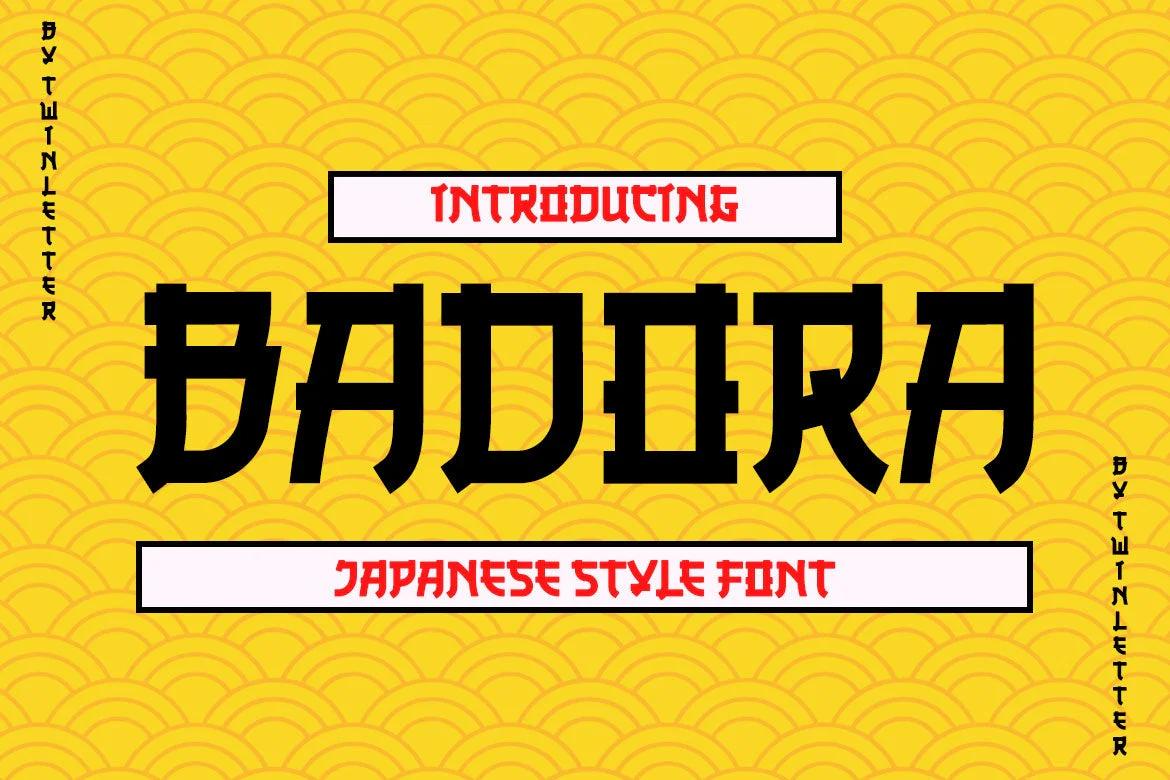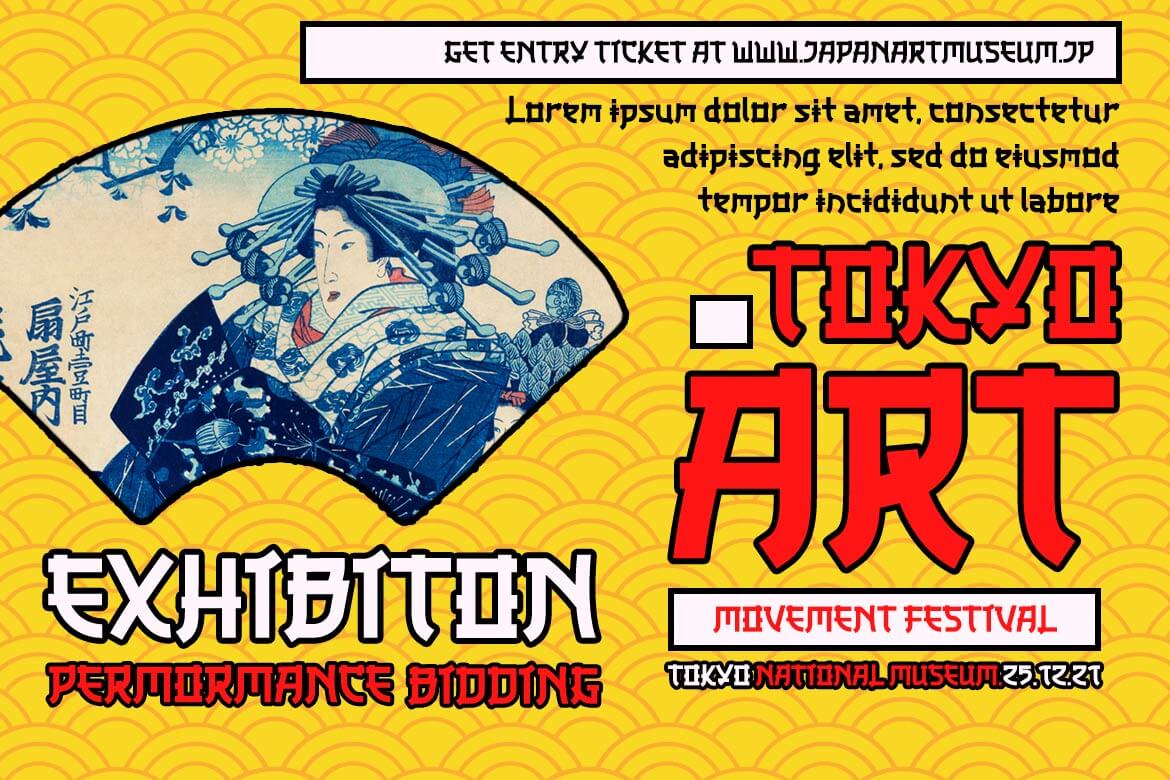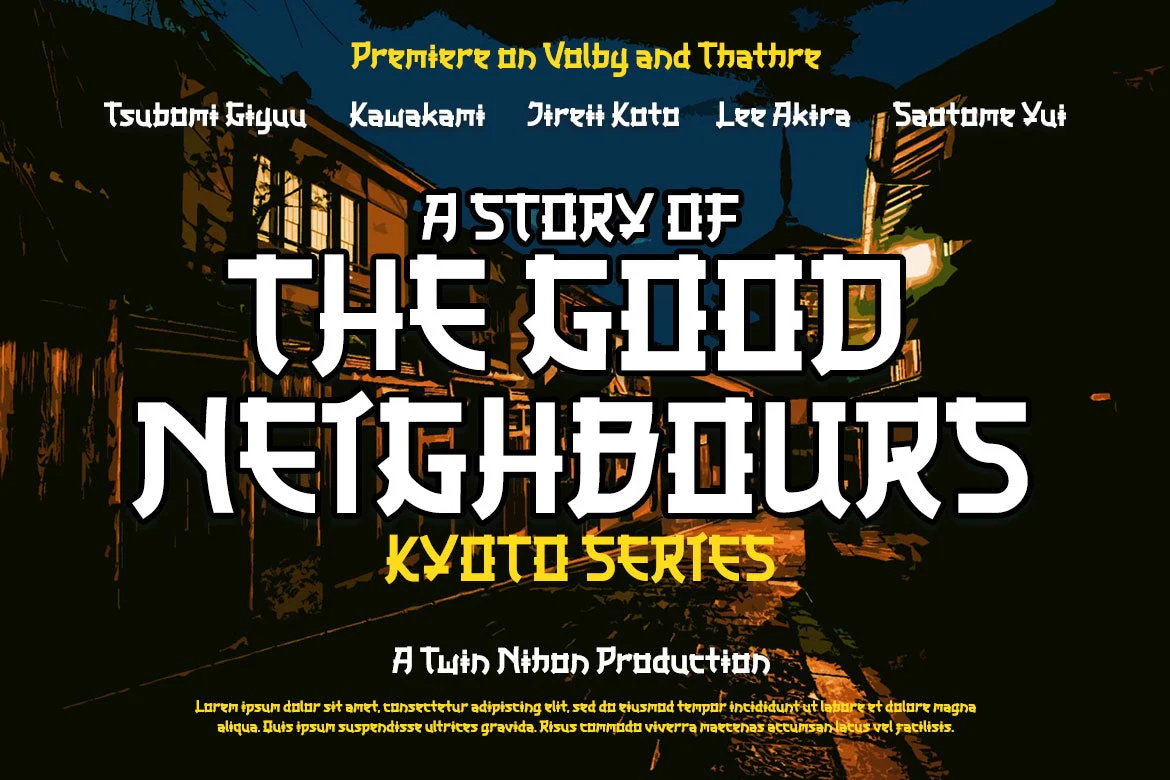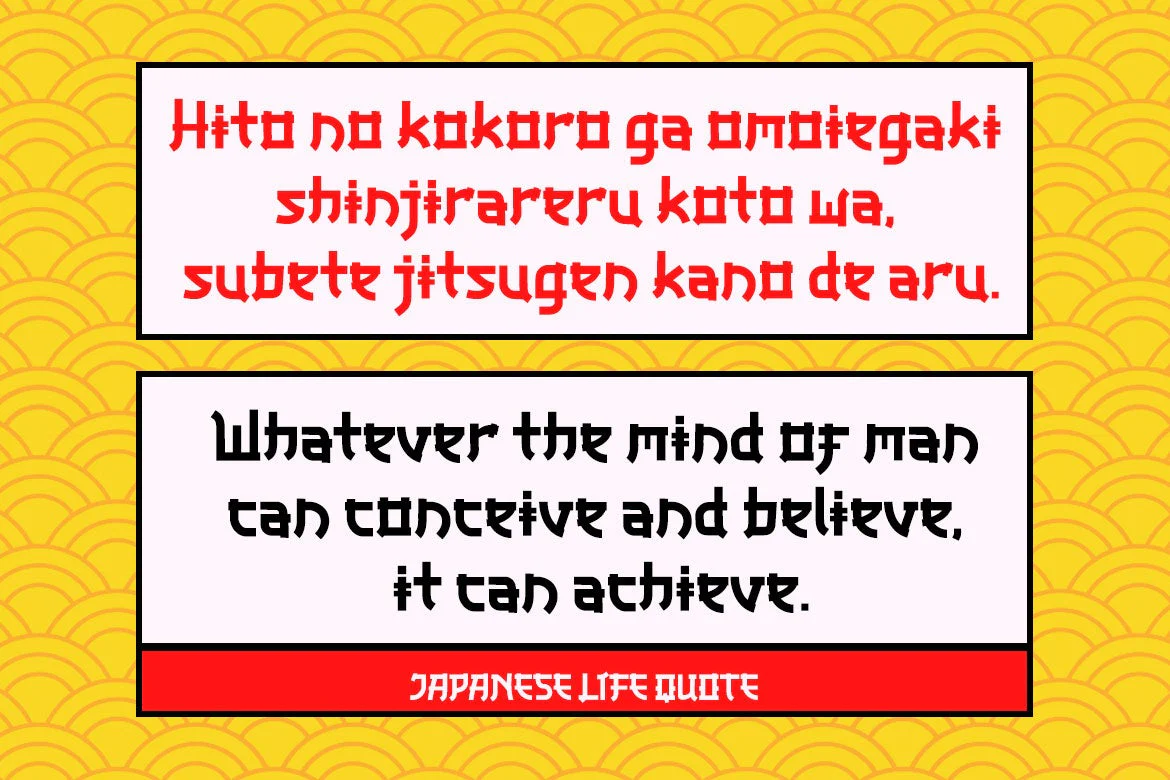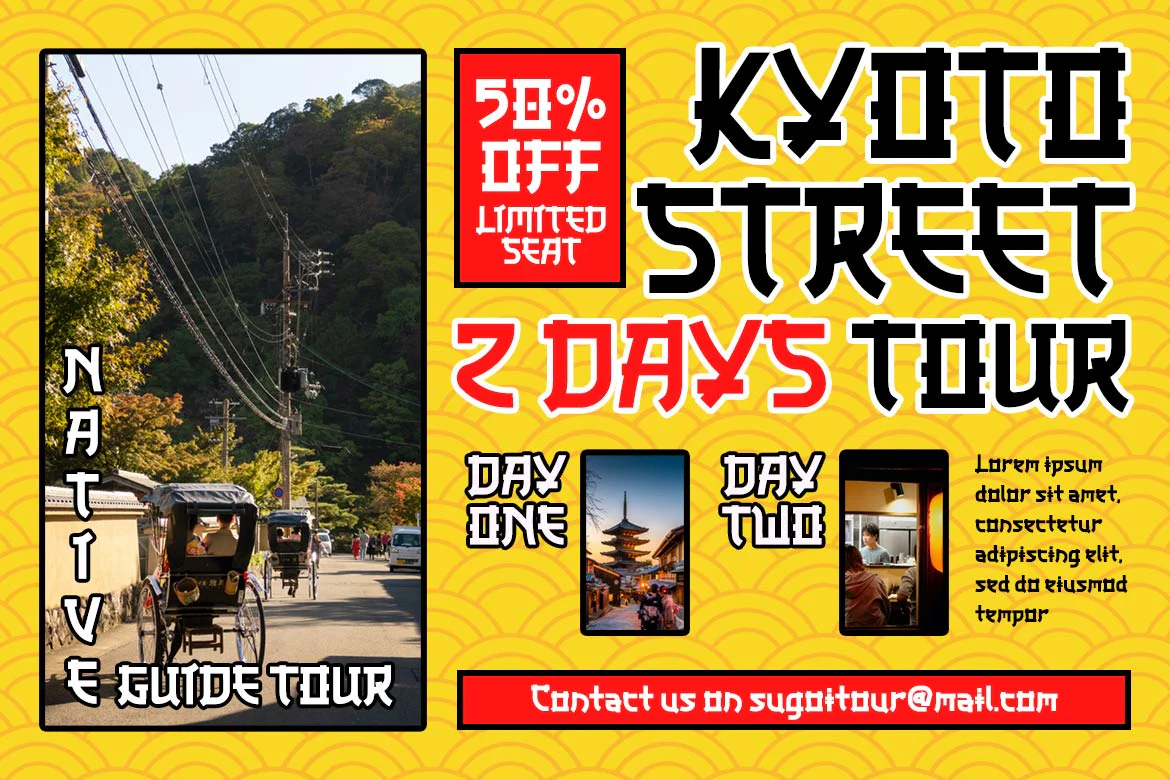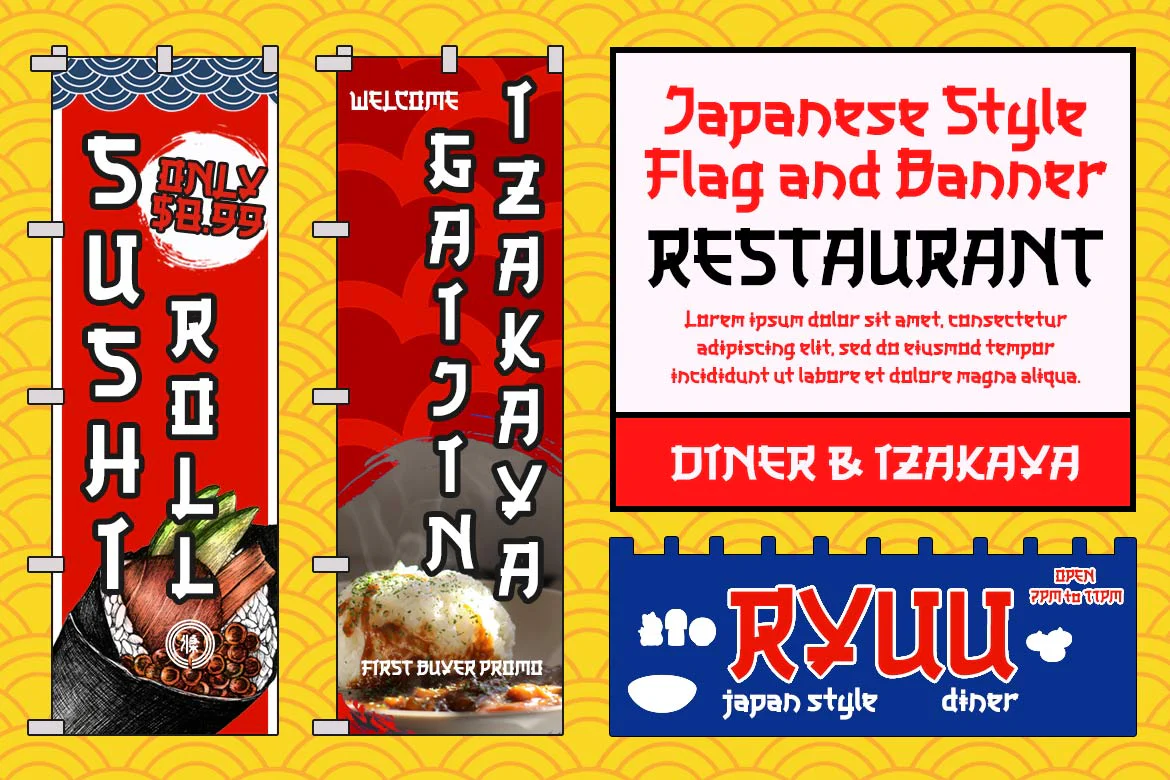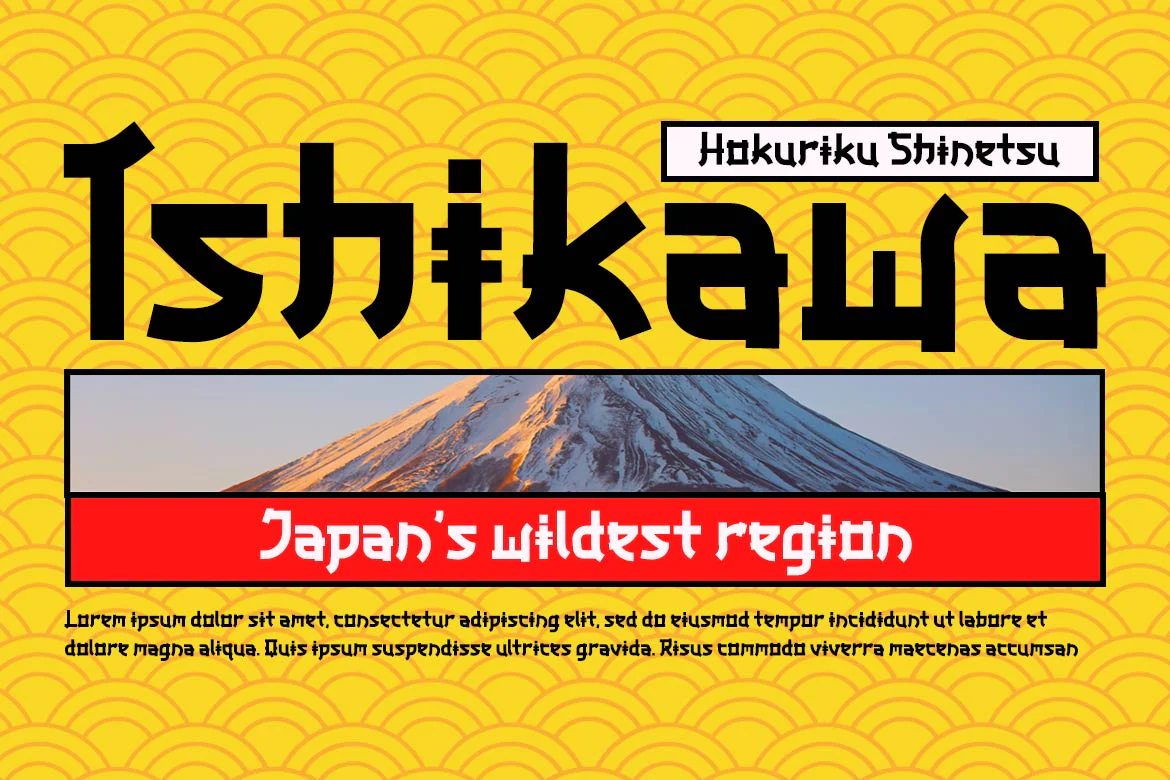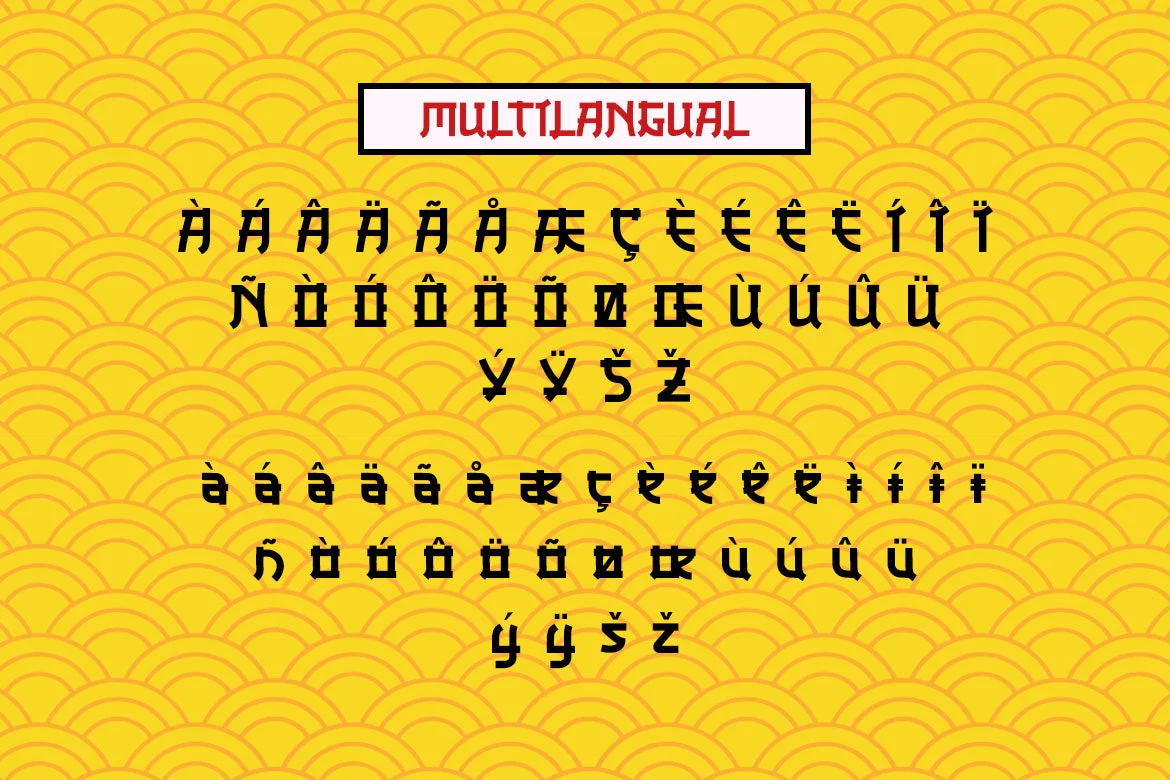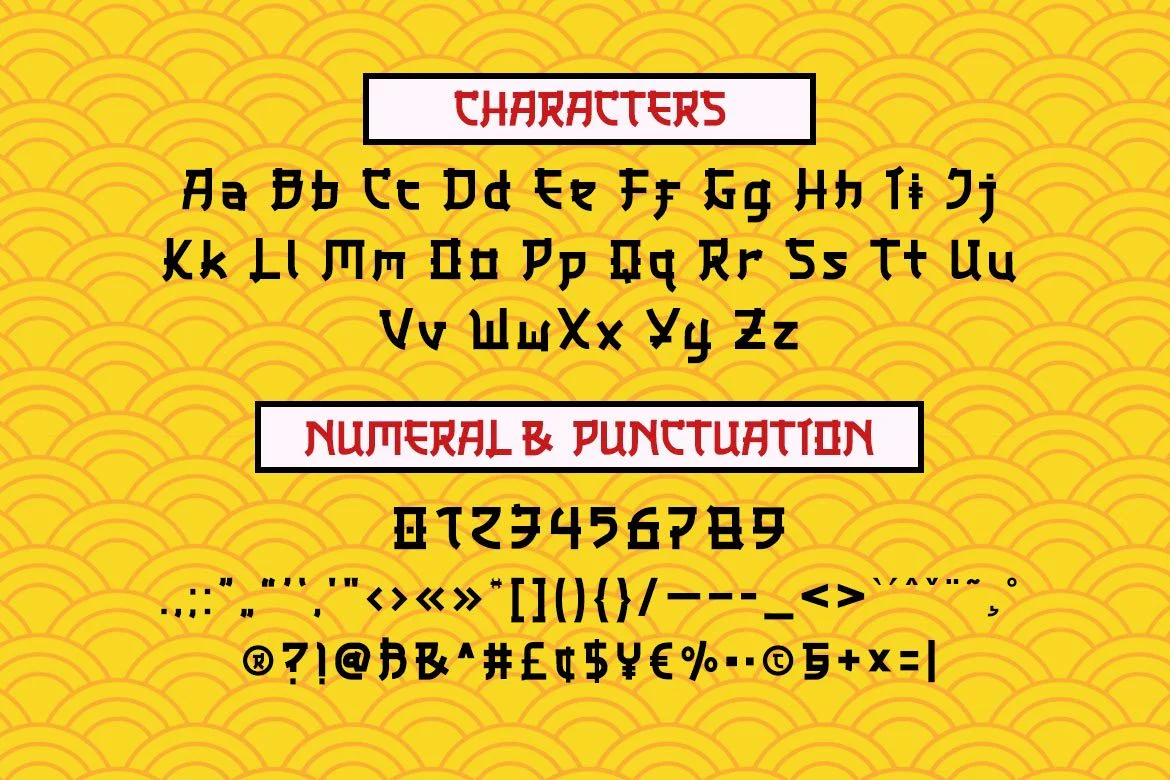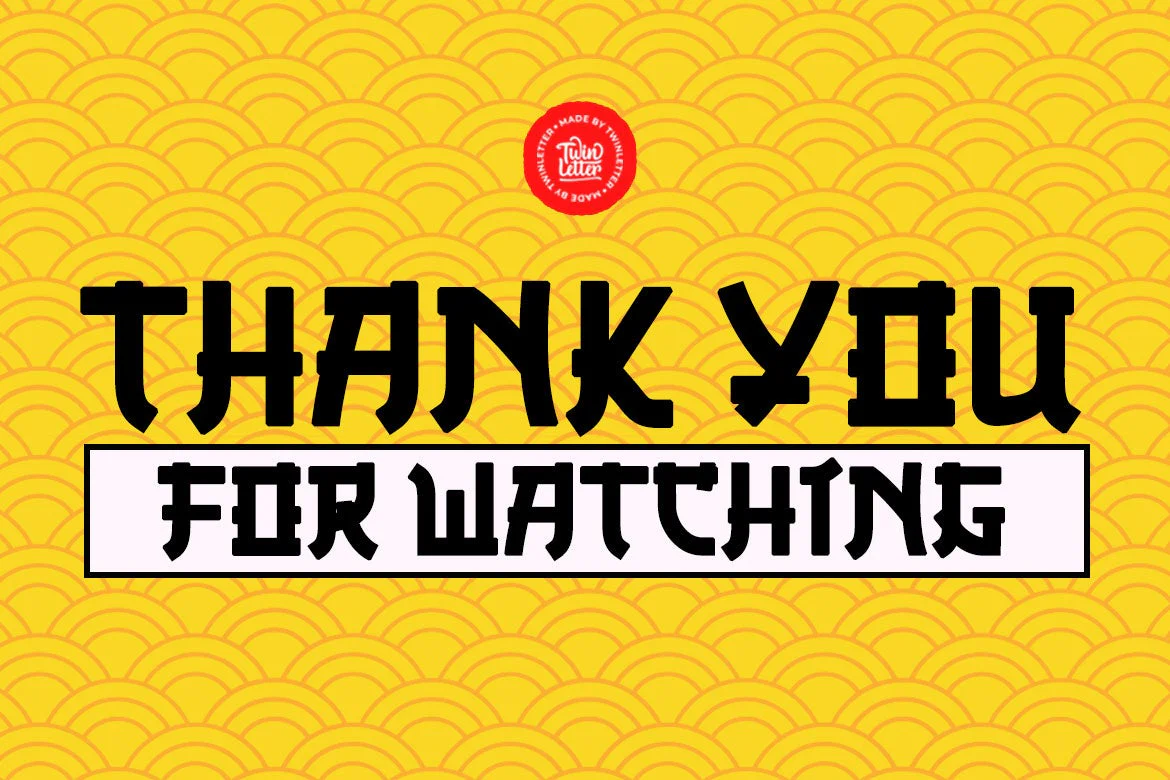
Badora Faux Japanese Font
BADORA, a display font with a Japanese flair, is now available.
We created this typeface using natural handwriting that has been modified in visual form so that it may be used in a variety of applications. This font will enhance any of your projects, particularly those with a casual and fun theme.
Logotypes, food banners, branding, brochure, posters, movie titles, book titles, quotes, and more may all benefit from this font.
Of course, using this font in your various design projects will make them excellent and outstanding; many viewers are drawn to the striking and unusual graphic display.
Start utilizing this typeface in your projects to make them stand out.